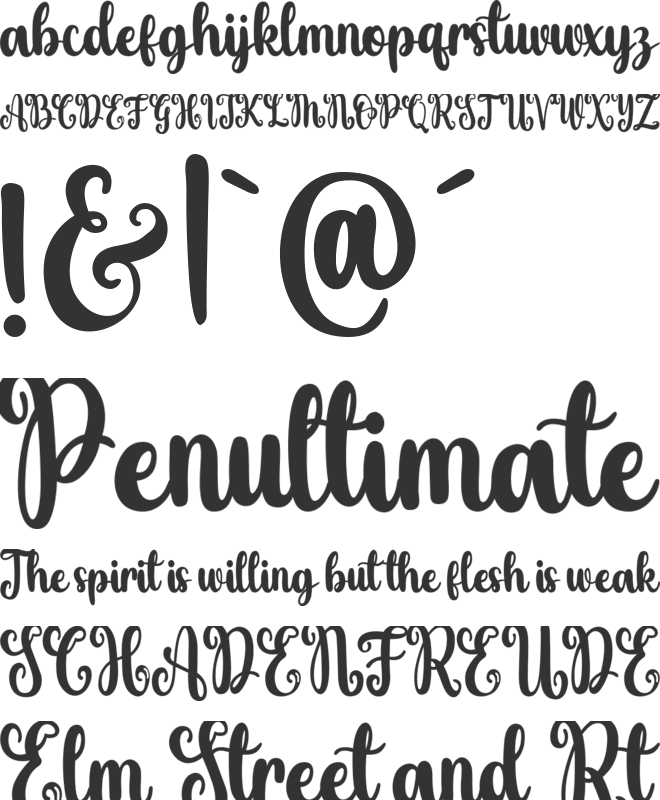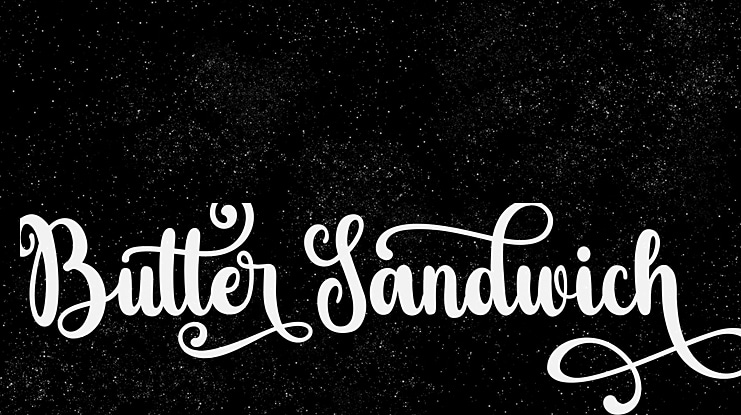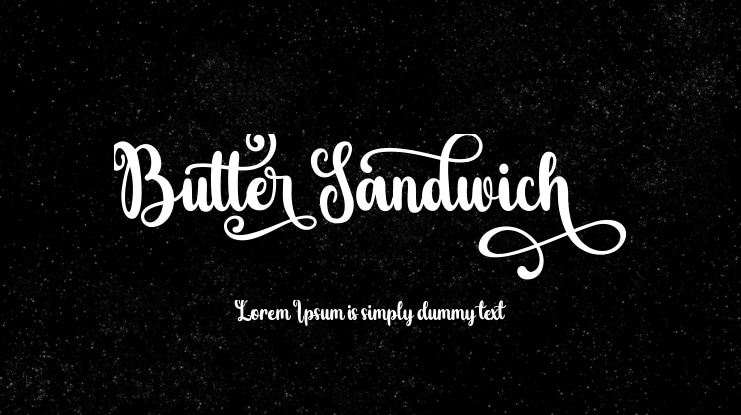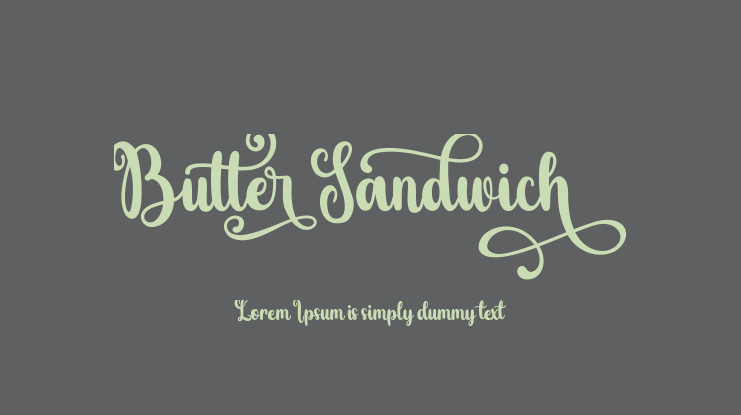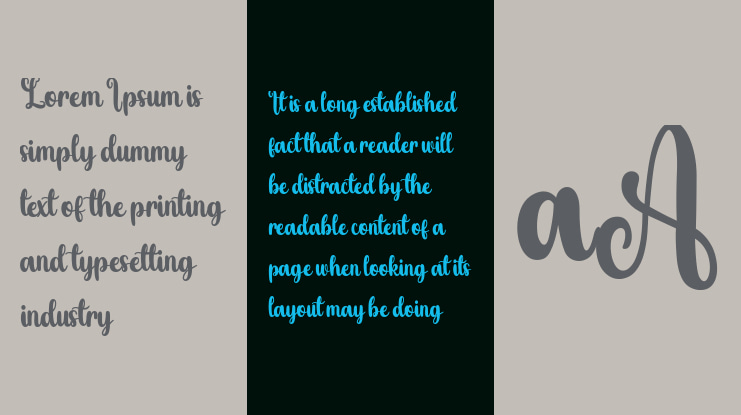
ButterSandwich Font
Butter Sandwich is a amazing typeface.
It is one of the typeface calligraphy script fonts that comes with very beautiful character changes.
Butter Sandwich consists of 5 version :
Script Clean
Script Texture,
Sans
Monogram
Extra doodles and cliparts.
Butter Sandwich is interesting because the typeface is pleasing to the eye, clean, feminine, sensual, glamorous, simple and very easy to read, because there are many fancy letter connections. It has beautiful and well balanced characters and as a result, it matches a wide pool of designs.